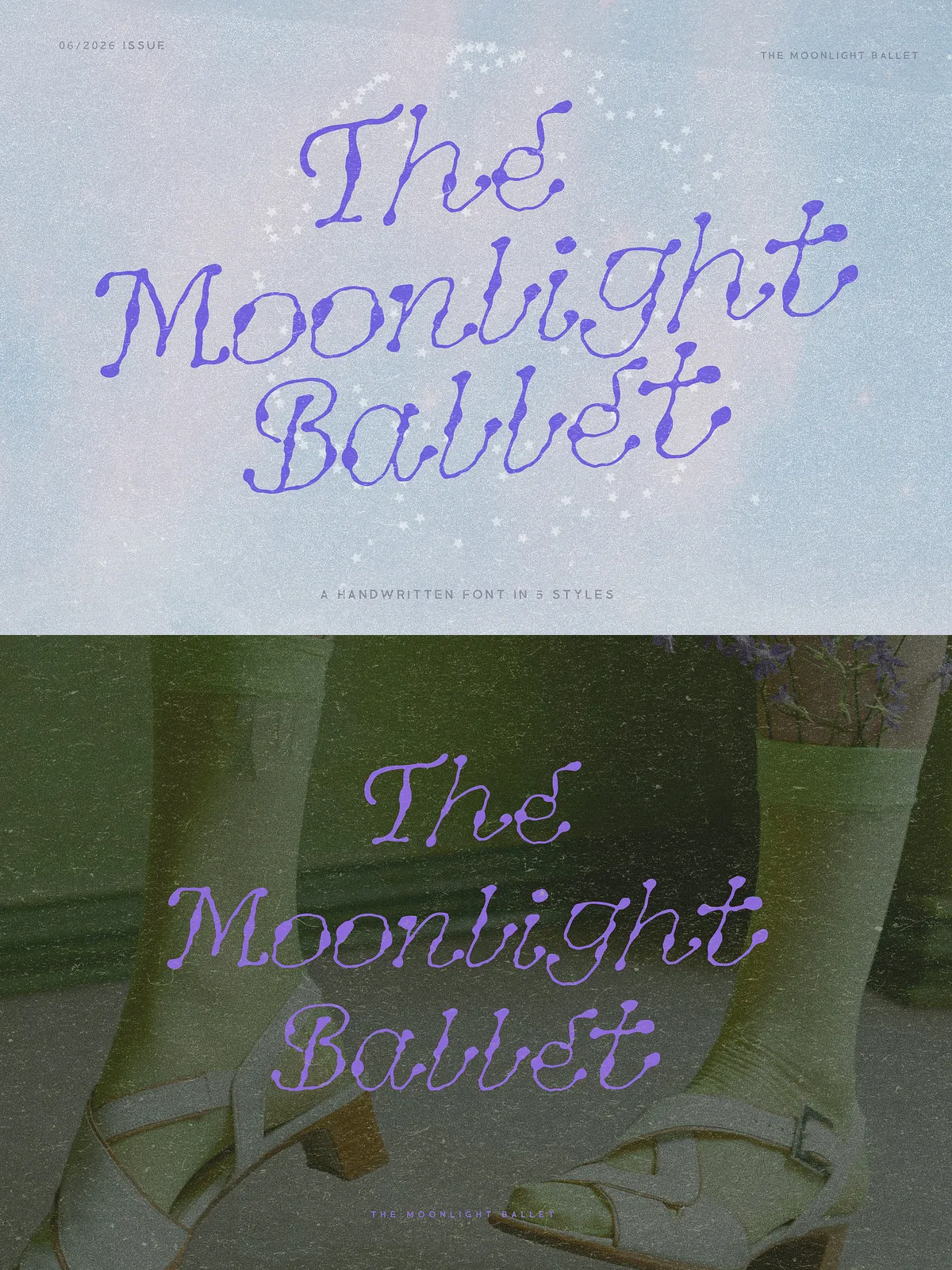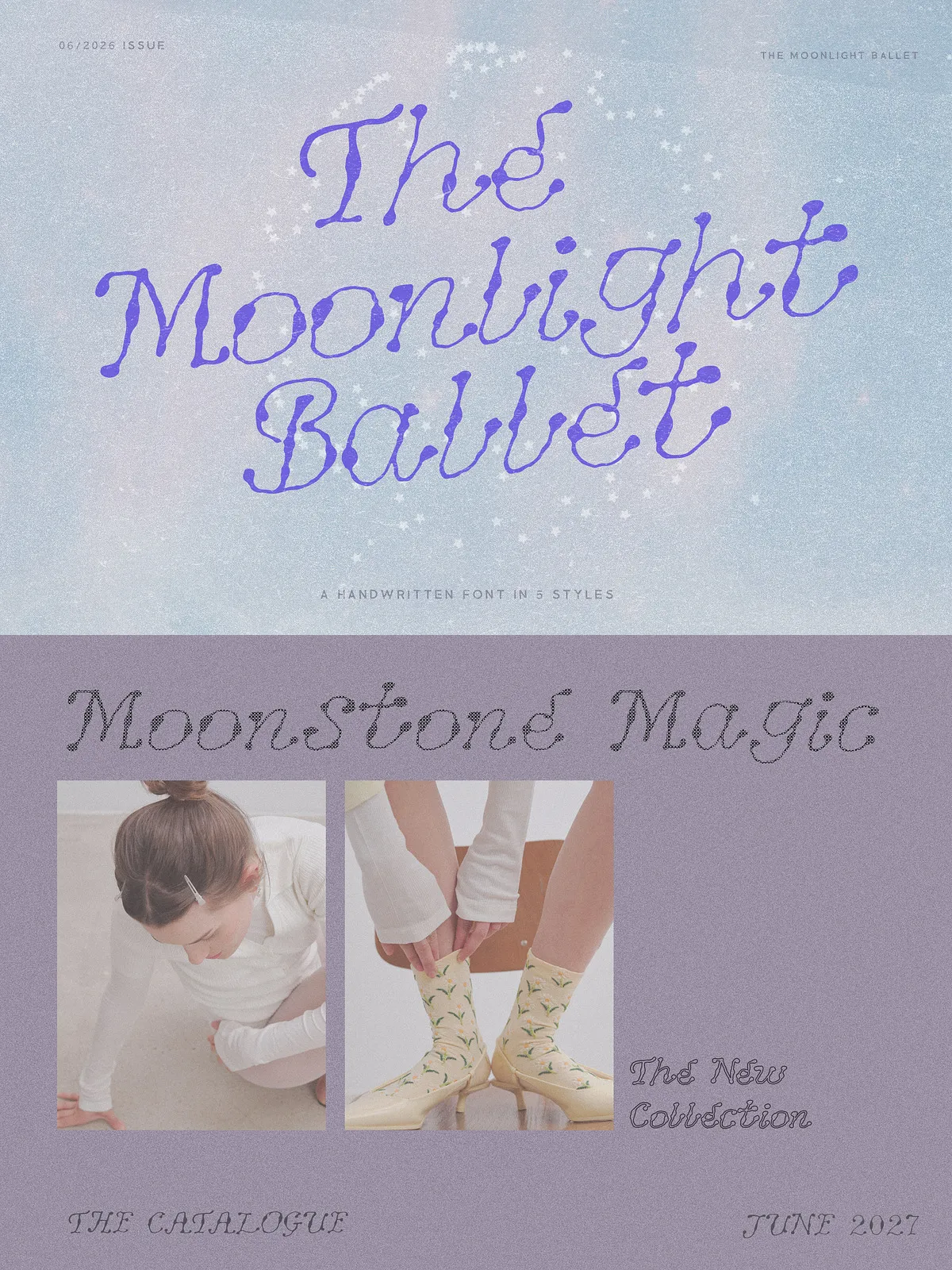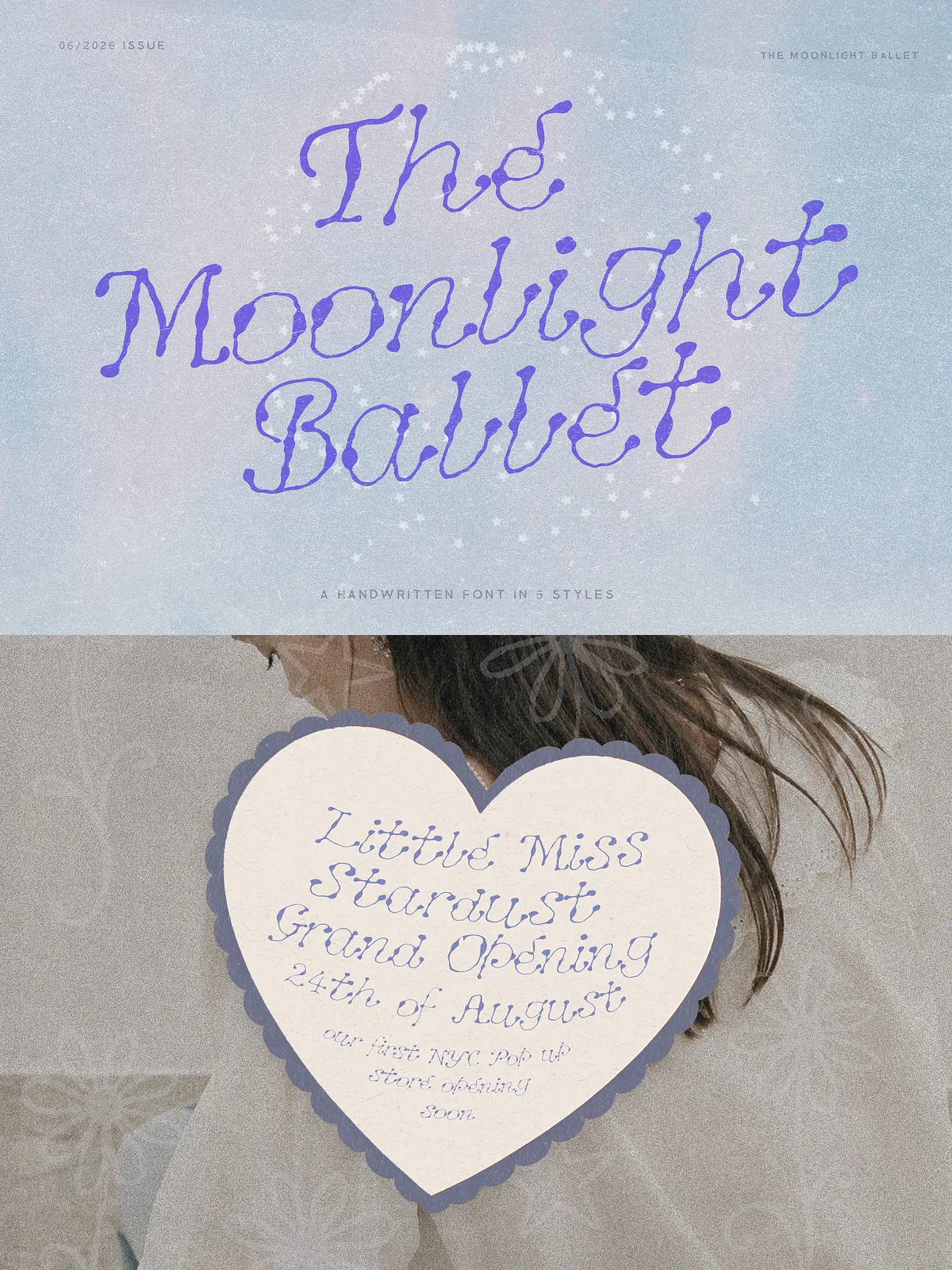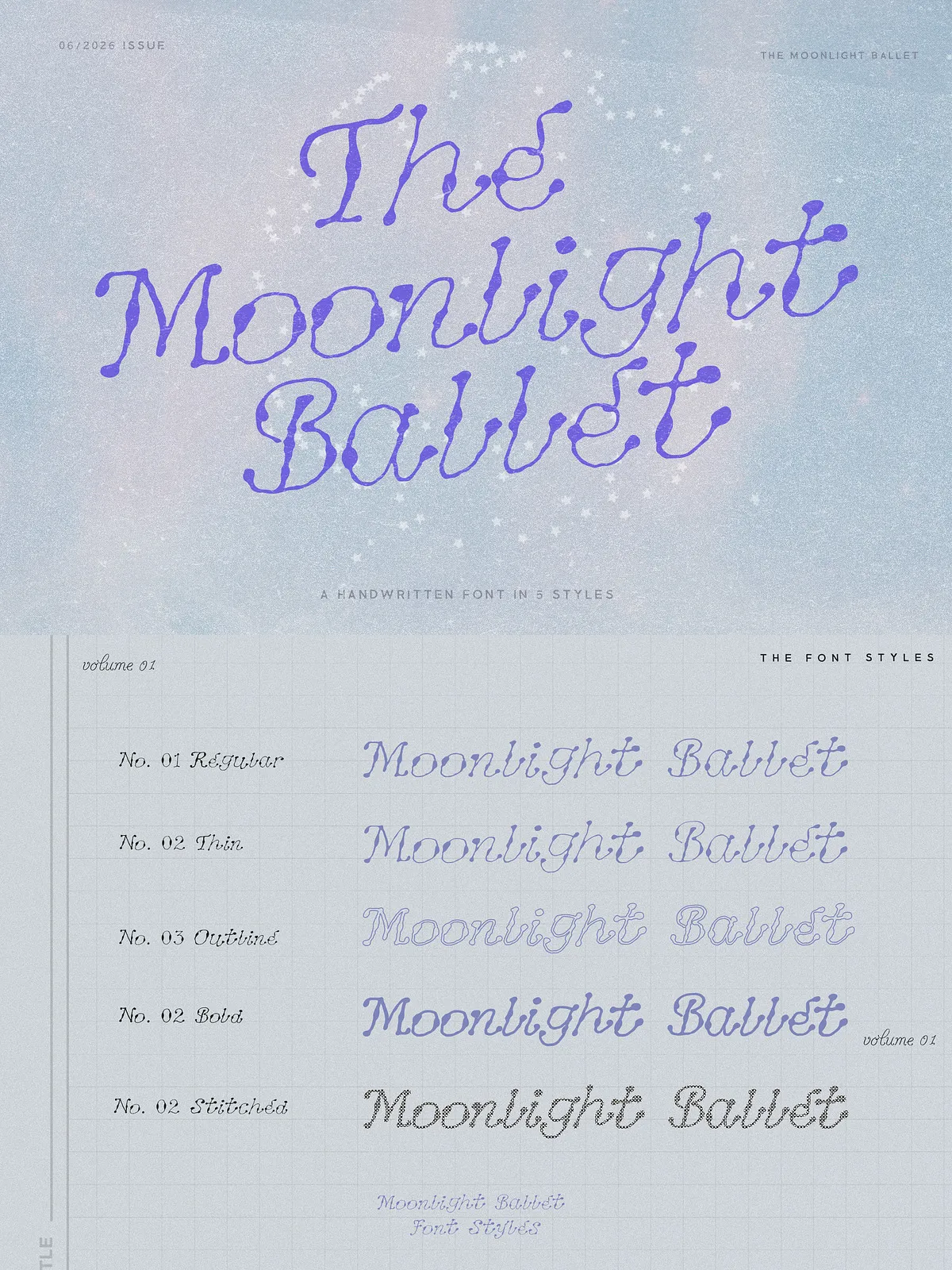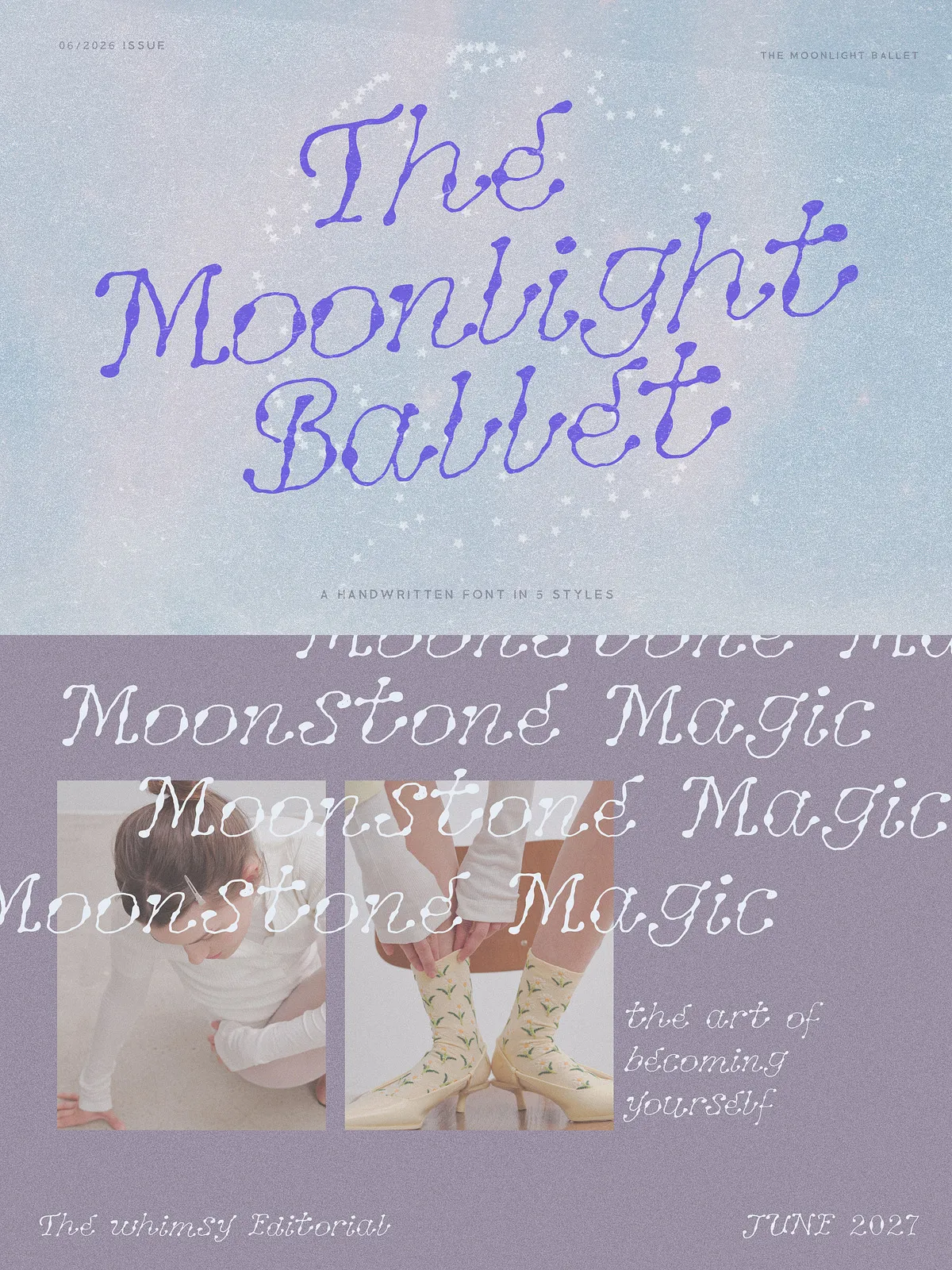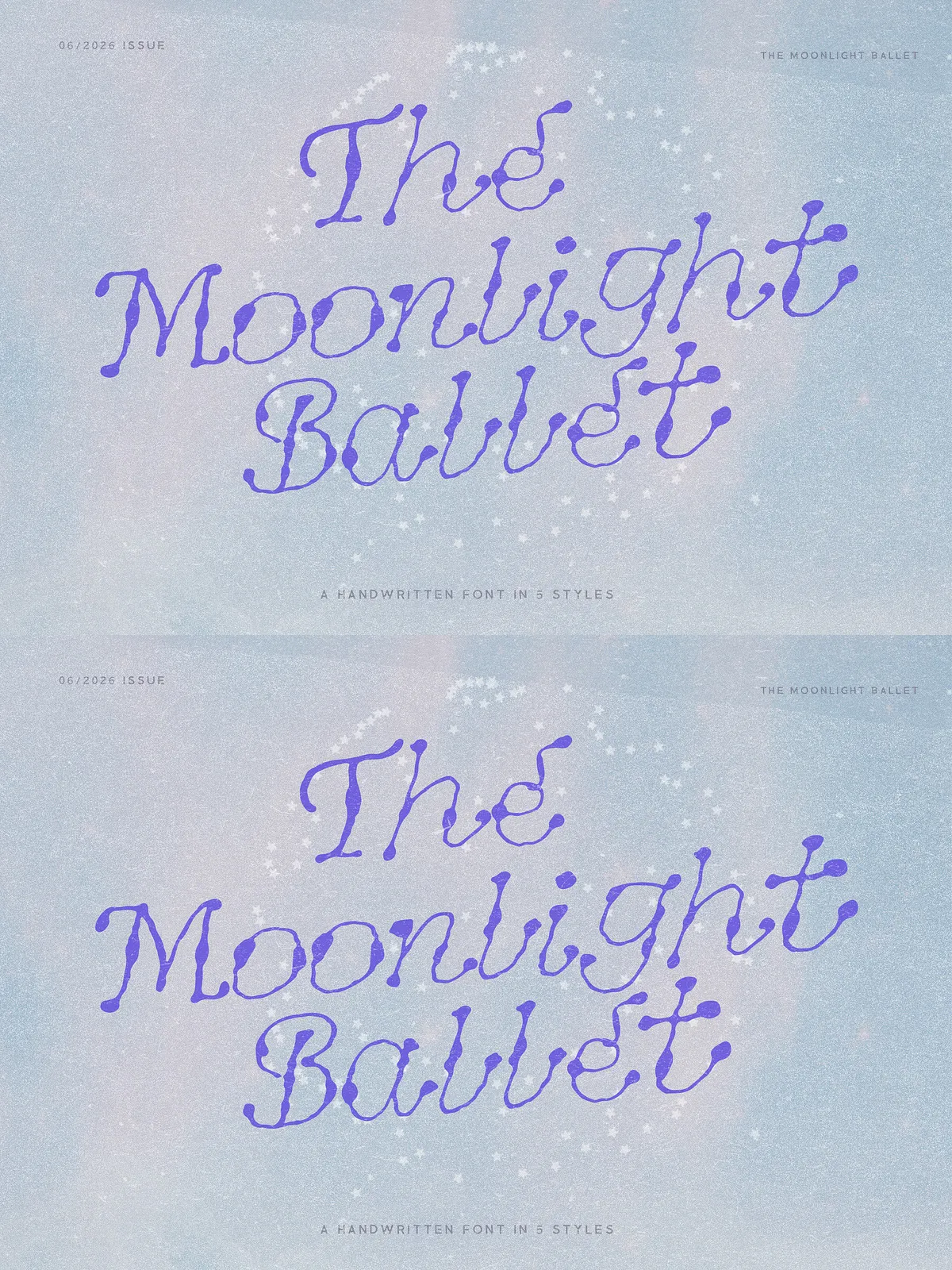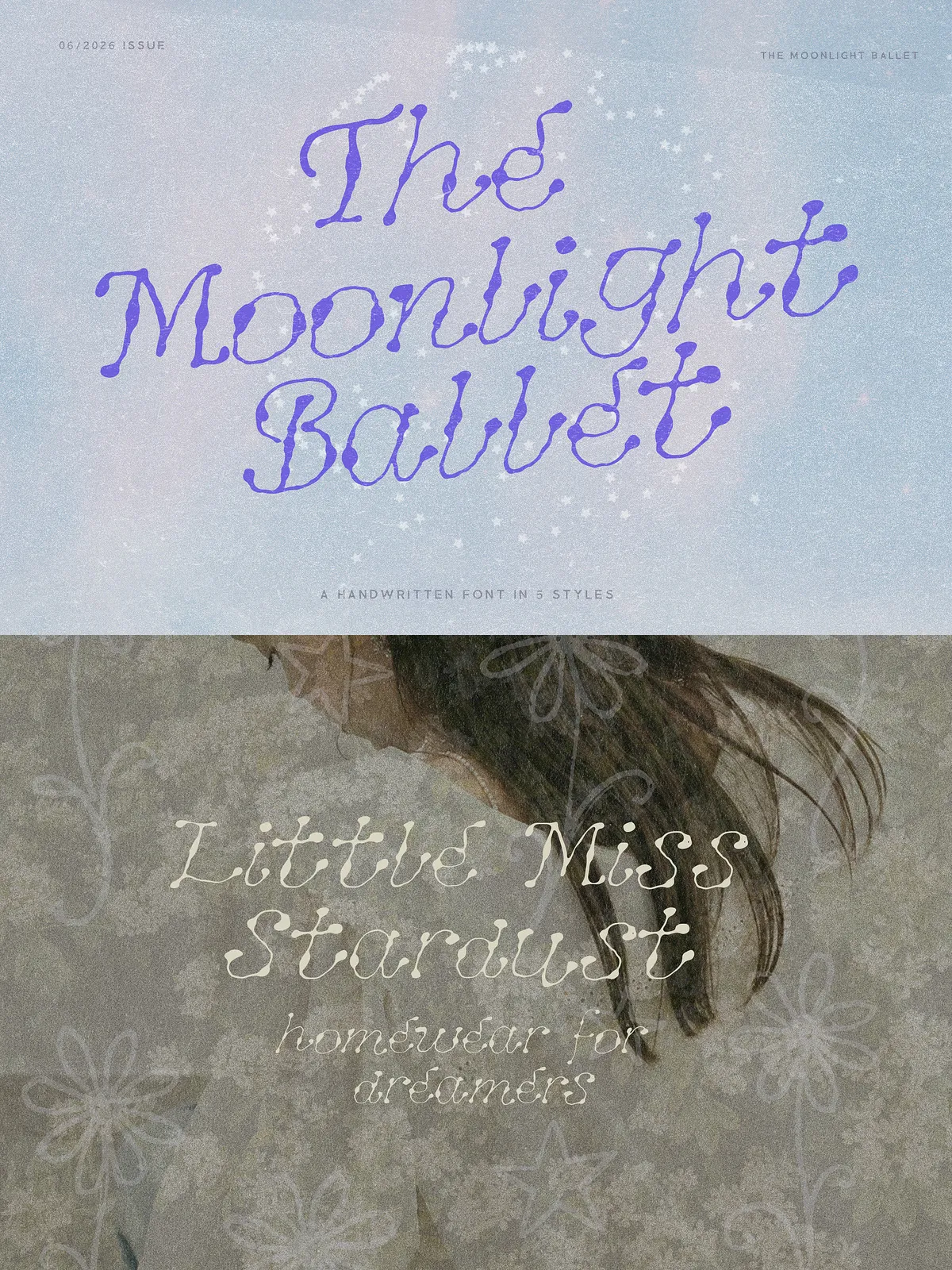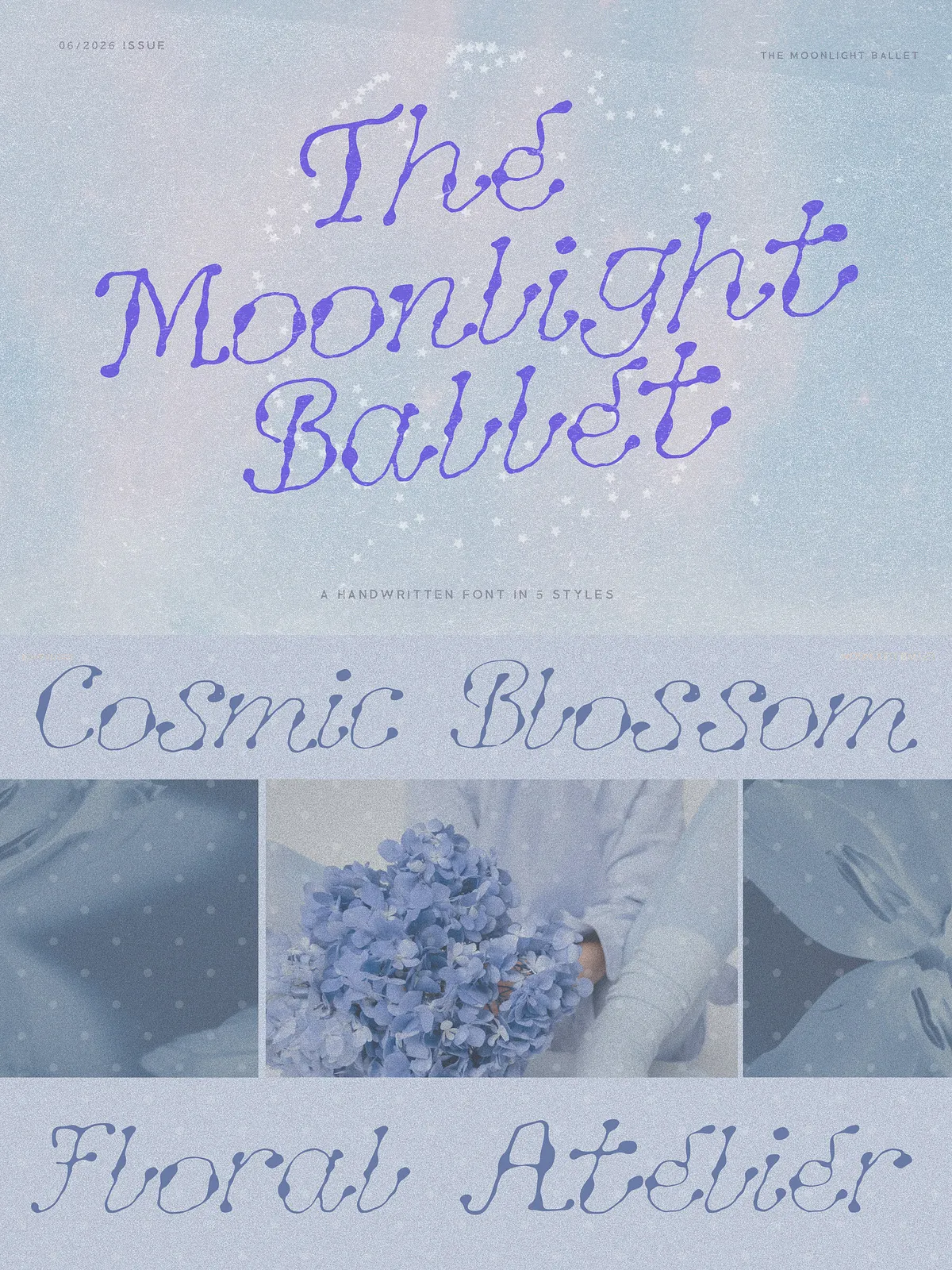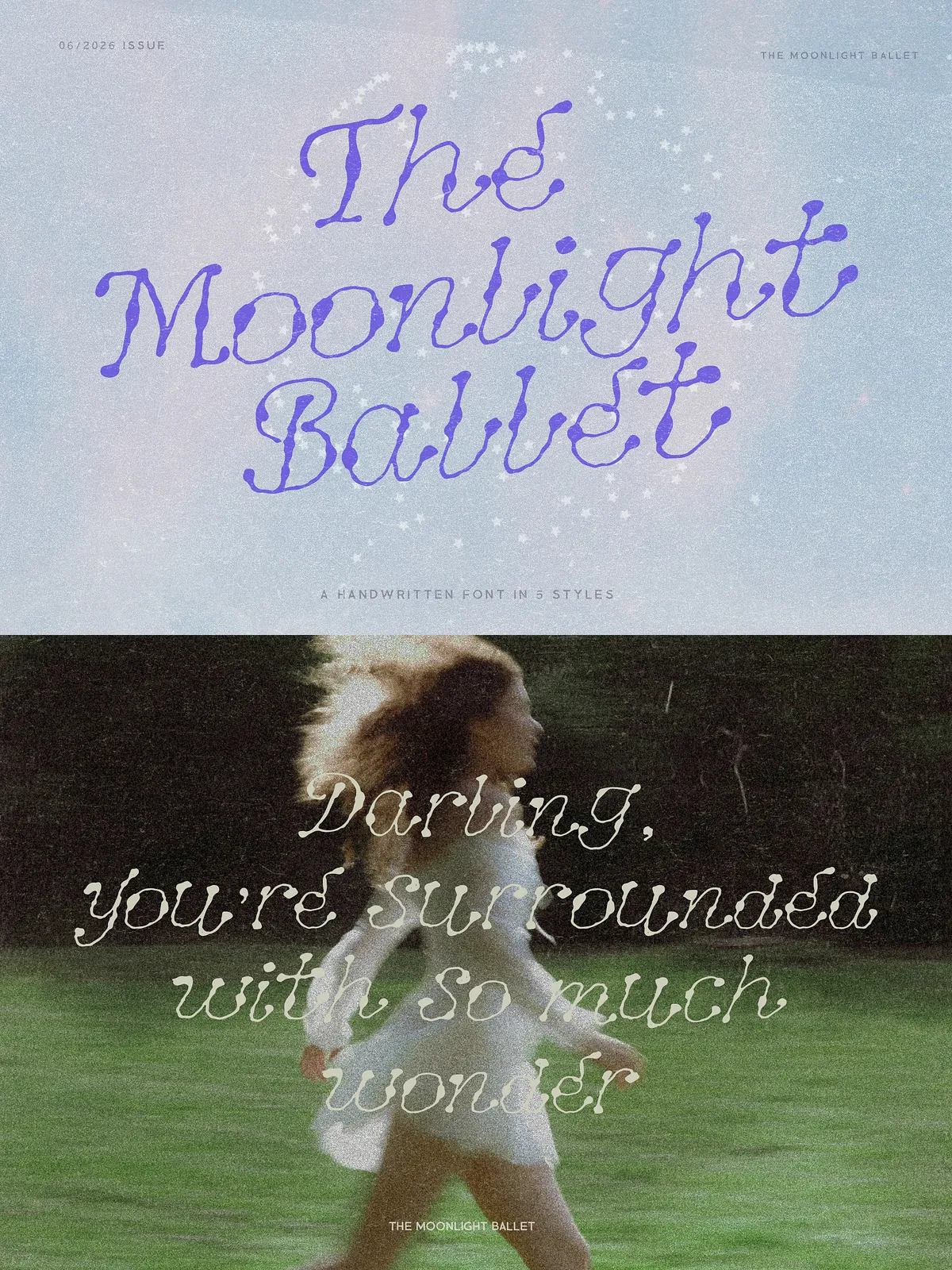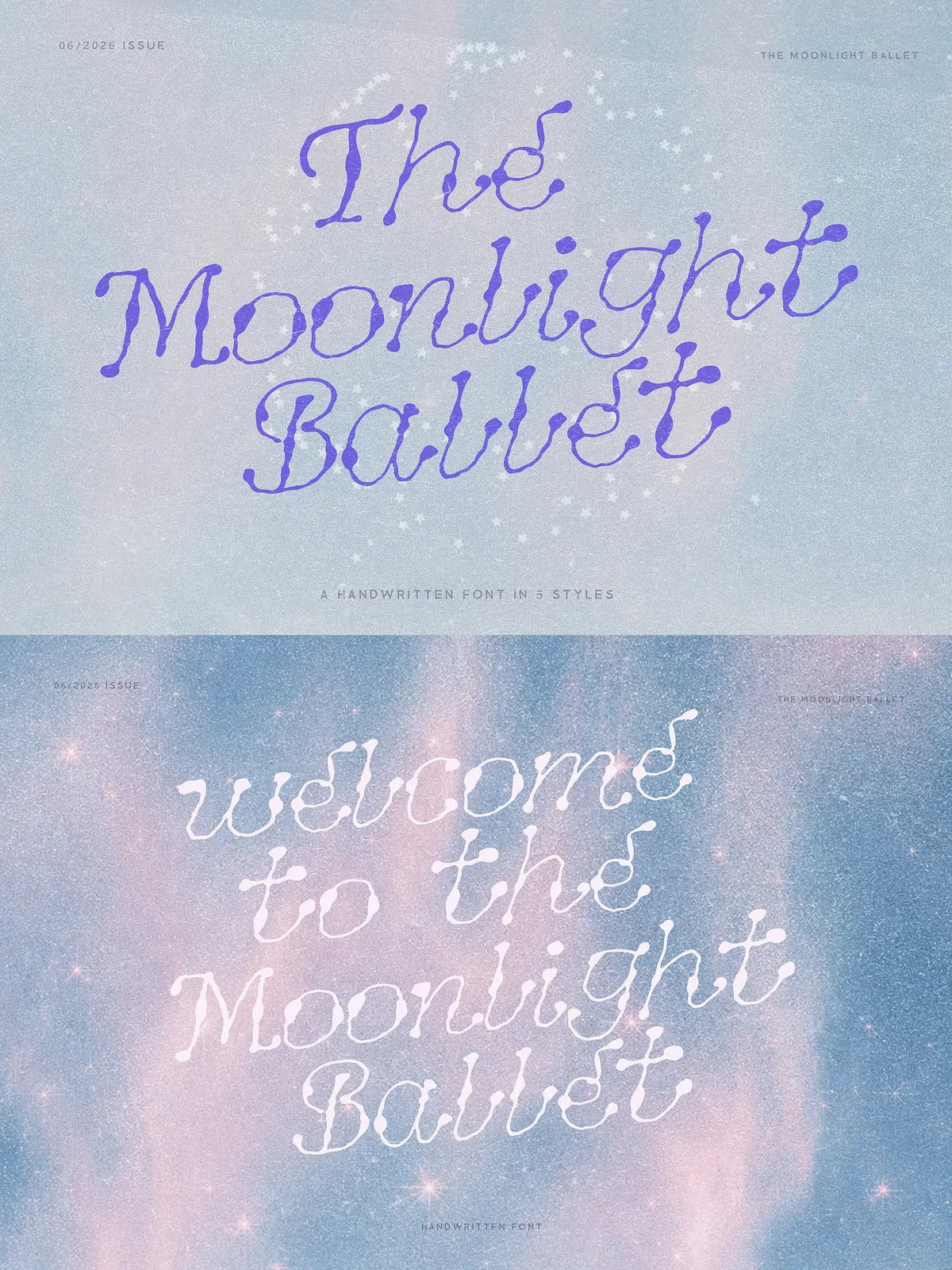
Moonlight Ballet delivers a playful, celestial personality through hand-crafted letterforms that dance across the page. Designed with rounded shapes, artistic rhythm, and carefully placed ink-drop details, this family brings movement and charm to every creative application. The collection includes five distinct styles — Regular, Bold, Thin, Outline, and Stitched — giving designers flexible tools to compose cohesive and expressive visual identities.
Design Features
Handwritten Character and Rounded Forms
Moonlight Ballet emphasizes a handcrafted feel with rounded terminals and fluid strokes. Each glyph carries subtle irregularities that read as intentional, authentic handwriting rather than a manufactured script, helping projects feel personal and bespoke.
Artistic Rhythm and Decorative Details
The typeface introduces visual movement through varied stroke widths and playful counters. Small ink-drop accents and subtle quirks inject personality without compromising legibility. These details help headlines, logos, and short display copy capture attention instantly.
Versatile Style Set
Offering Bold, Regular, Thin, and Outline versions plus a Stitched texture variant, Moonlight Ballet adapts to multiple hierarchies and aesthetic directions. Use Bold for strong headlines, Thin for delicate subheads, Outline for layered looks, and Stitched for tactile, craft-forward projects.
Recommended Uses
Branding & Logos
Moonlight Ballet works strongly for boutique and lifestyle brands that want to convey a charming, handcrafted identity. Combine the Regular or Bold styles for wordmarks and the Outline or Stitched variants for secondary badges or label accents.
Packaging & Product Design
Deploy the Stitched or Outline versions on product labels to create tactile, artisan-forward packaging. The font reads clearly on textured paper, kraft stock, and pastel backgrounds, reinforcing craft and care in physical products.
Invitations, Stationery & Event Collateral
The font’s whimsical tone suits wedding invitations, event signage, and stationery. Use the Thin or Regular styles for names and headings and reserve decorative details for focal words to maintain clean readability across printed pieces.
Social Graphics, Posters & Editorial
Moonlight Ballet animates social posts, poster headlines, and editorial cover lines. Its varied styles allow designers to maintain a consistent voice while adapting visual weight across formats.
Styling & Pairing Recommendations
Pair with Neutral Sans-Serifs
Balance the font’s playfulness with a neutral sans-serif for body copy. Choose a geometric or humanist sans for a modern counterpoint that preserves readability and highlights Moonlight Ballet as a display element.
Control Decorative Elements
Apply decorative or stitched variants selectively. Reserve highly ornamental styles for short phrases, logos, or accents. For multi-line copy, favor Regular or Thin to avoid visual clutter and to maintain hierarchy.
Color, Texture & Background
Moonlight Ballet performs best on soft gradients, pastel palettes, and textured surfaces. When placing the font over imagery, add subtle overlays or contrast outlines to ensure legibility while preserving the dreamy mood.
Why Choose Moonlight Ballet
Moonlight Ballet actively injects personality into visual projects while preserving practical versatility. Its five-style system empowers designers to create layered typographic systems — from soft, delicate headlines to bold, attention-grabbing marks — all within one coherent family. The stitched texture adds a tactile option that differentiates product and packaging work, giving brands a memorable, handcrafted edge.
Quick Usage Examples
- Logo: Set the brand name in MoonlightBallet-Bold and accent with Outline for a secondary lockup.
- Packaging: Use MoonlightBallet-Stitched for label titles and Regular for ingredient or product details.
- Invitation: Headline in MoonlightBallet-Thin with names in Regular to emphasize elegance and readability.